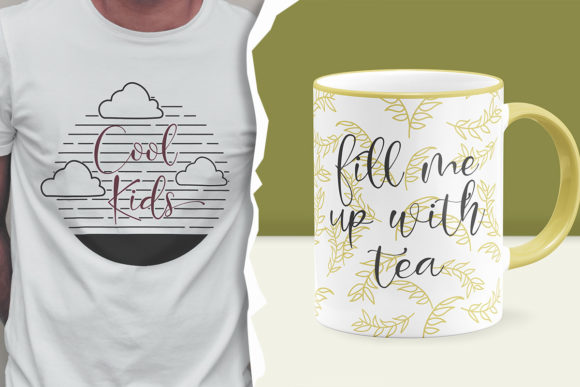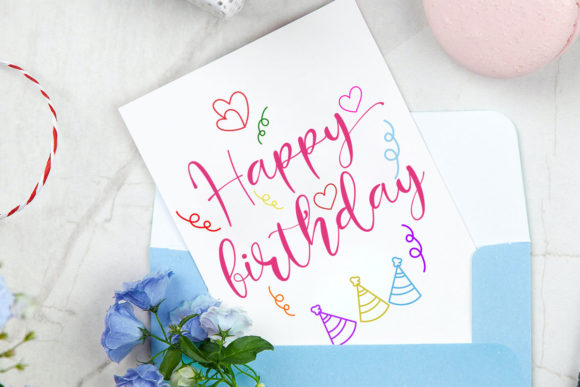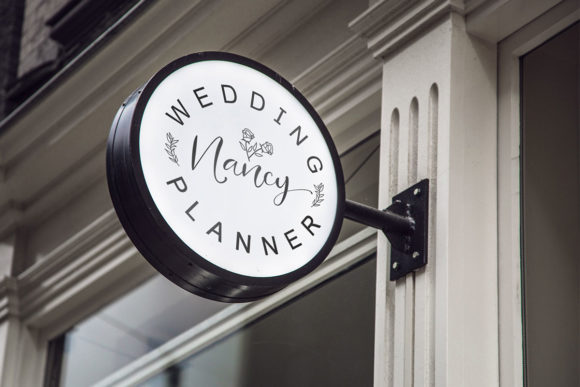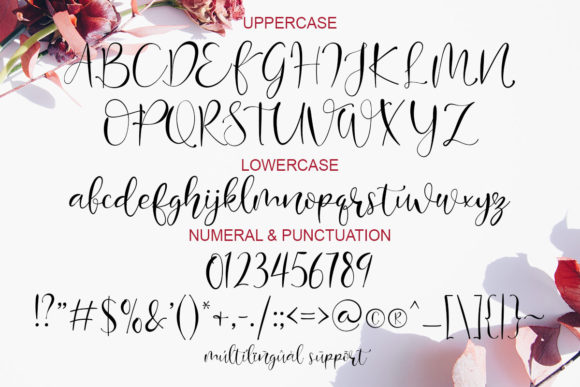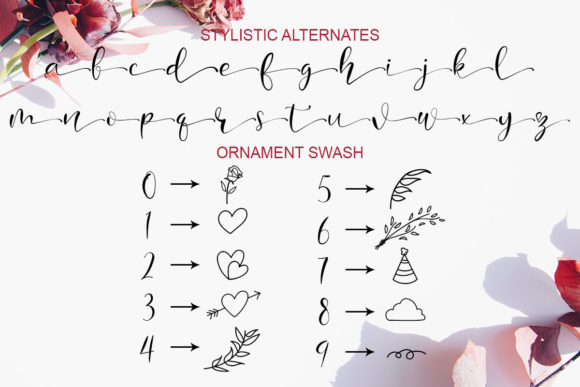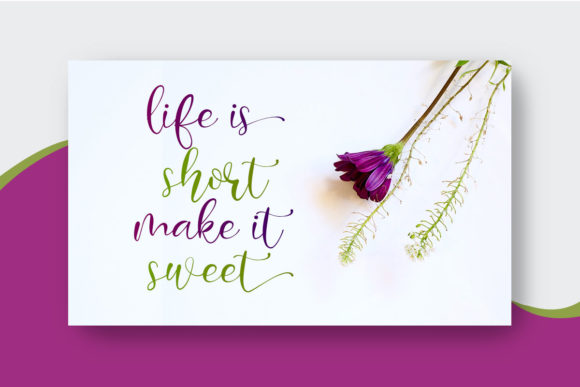
Introduction to Mondeylla Font Font
Fonts play a crucial role in design, and the Mondeylla Font font is a typeface that brings both character and versatility to any project. Whether you’re working on a branding project, a website, or a print design, the Mondeylla Font font offers a unique style that can elevate your work.
Mondeylla is a magical handwritten font carefully created with a touch of elegance.
It features a beautiful combination of timeless elegance and authentic calligraphy This font is PUA encoded which means you can access all of the glyphs and swashes with ease.
Key Features of Mondeylla Font Font
Why Choose Mondeylla Font Font?
The Mondeylla Font font is more than just a typeface – it’s a design tool that helps you communicate your message with style and clarity. Its unique character set and versatile design make it suitable for a wide range of applications, from elegant invitations to bold headlines.
With its carefully crafted letterforms and balanced proportions, the Mondeylla Font font ensures readability and visual appeal across all mediums.
What makes Mondeylla Font font special?
The Mondeylla Font font stands out with its unique design, exceptional readability, and versatility across various design applications.